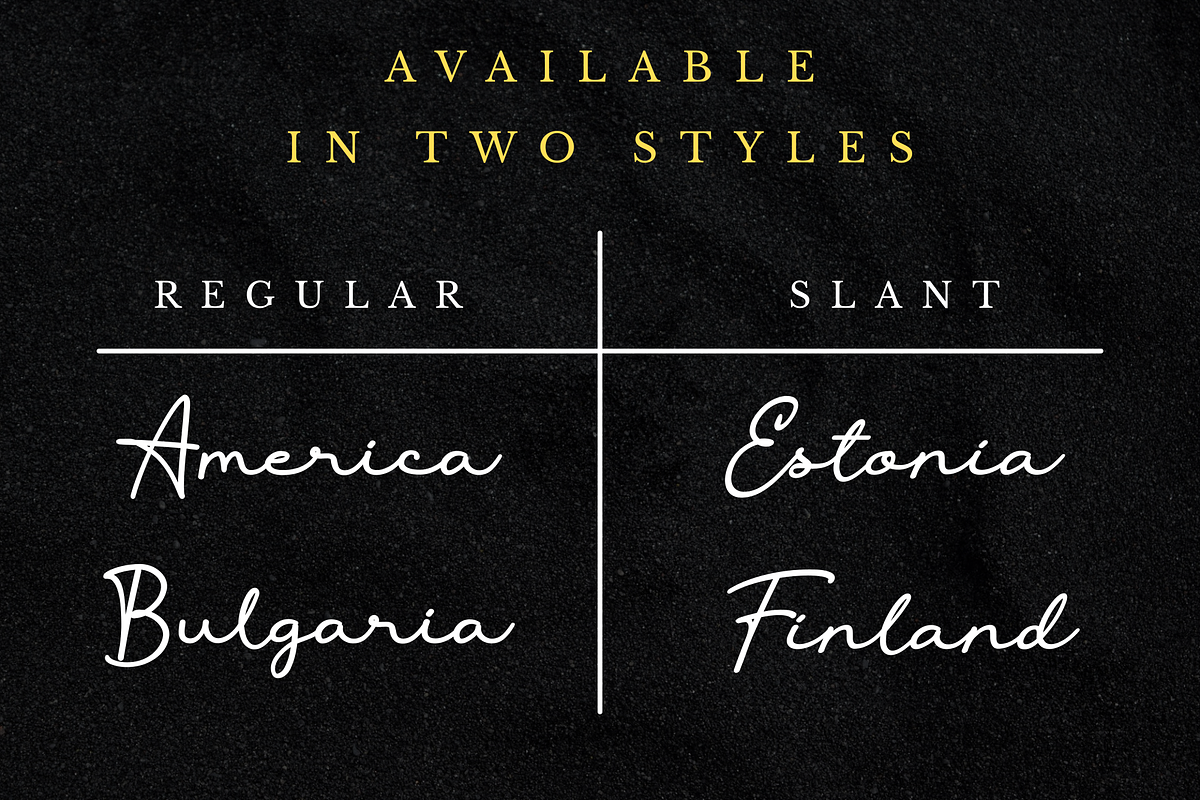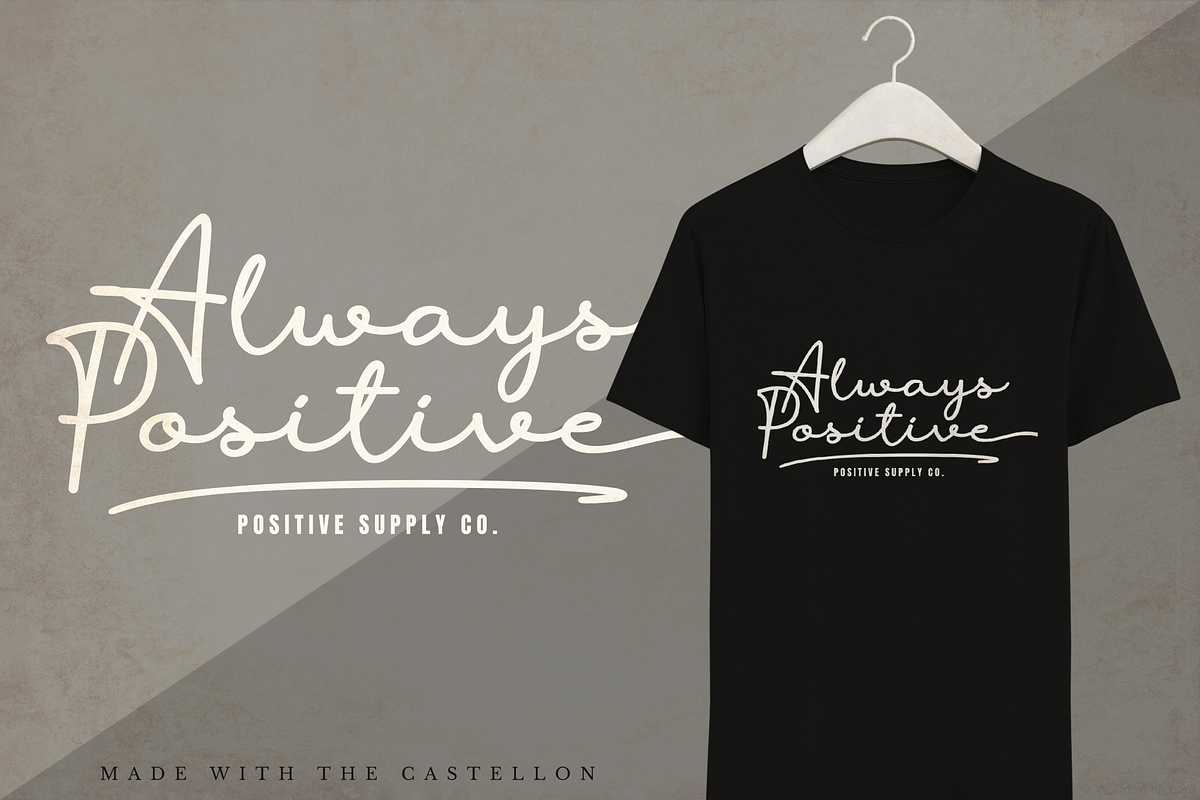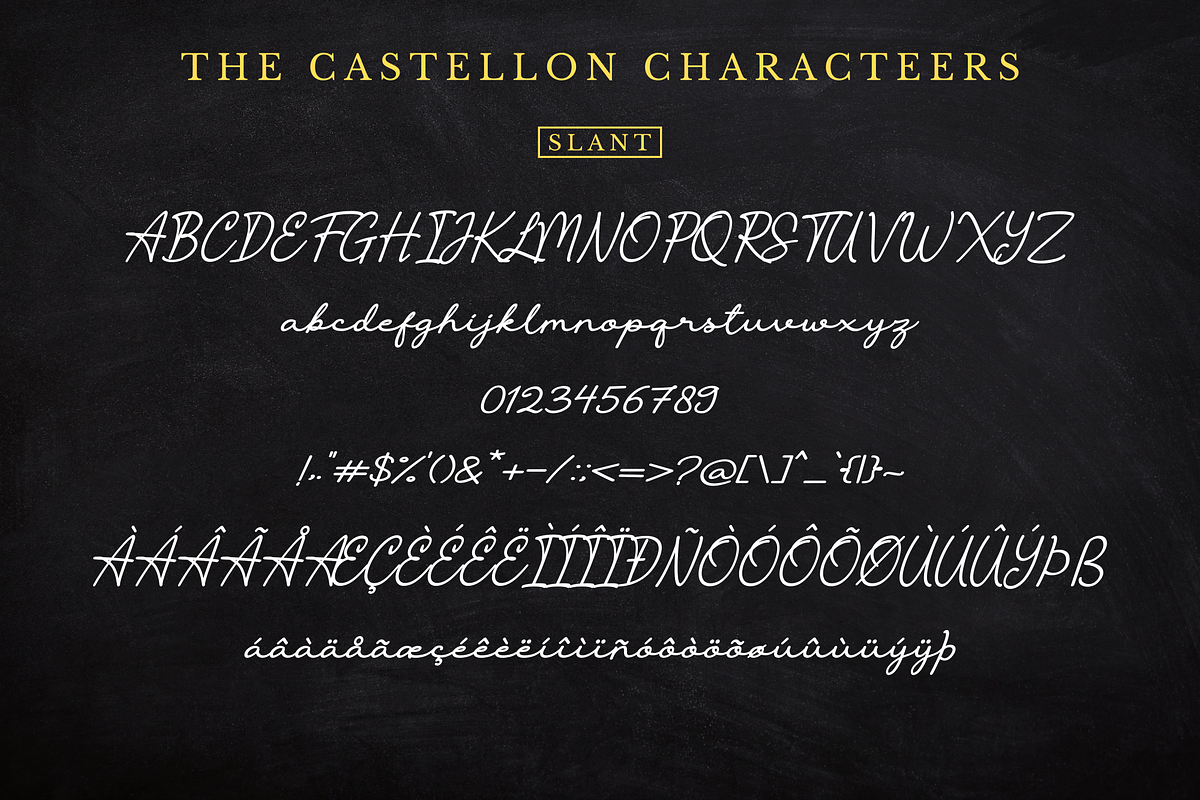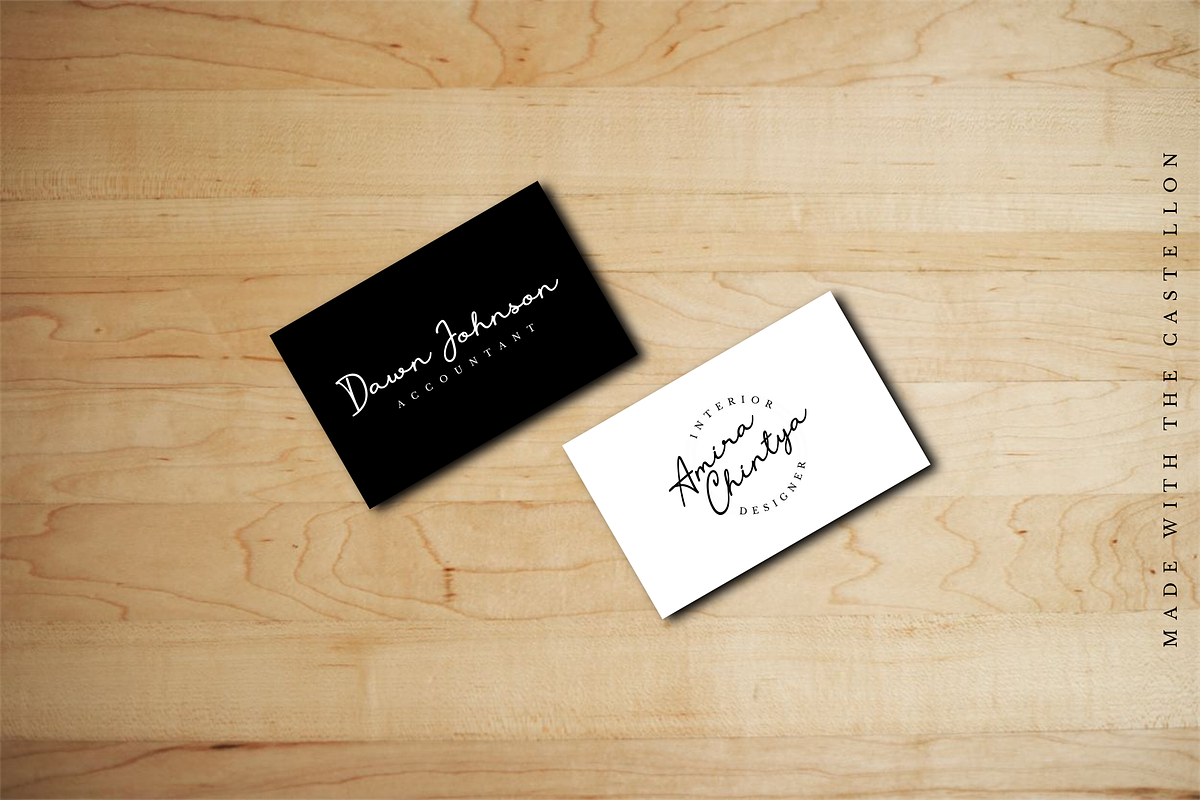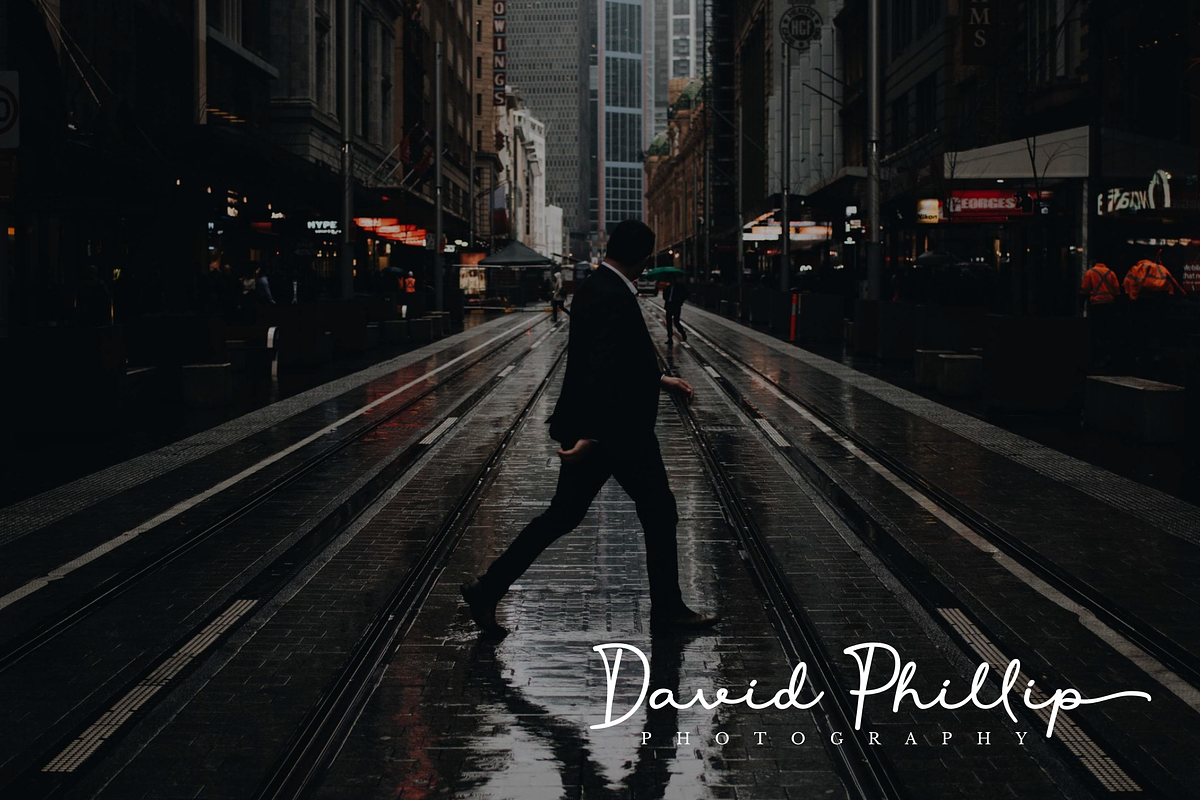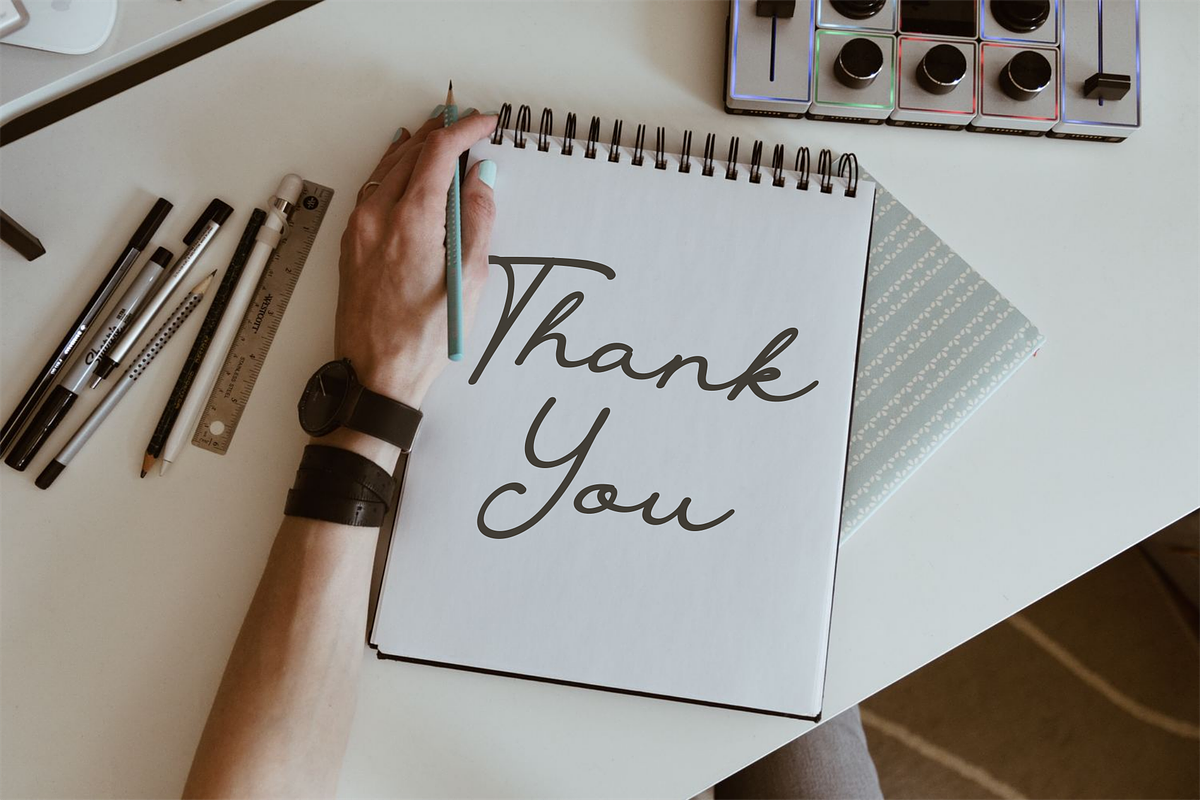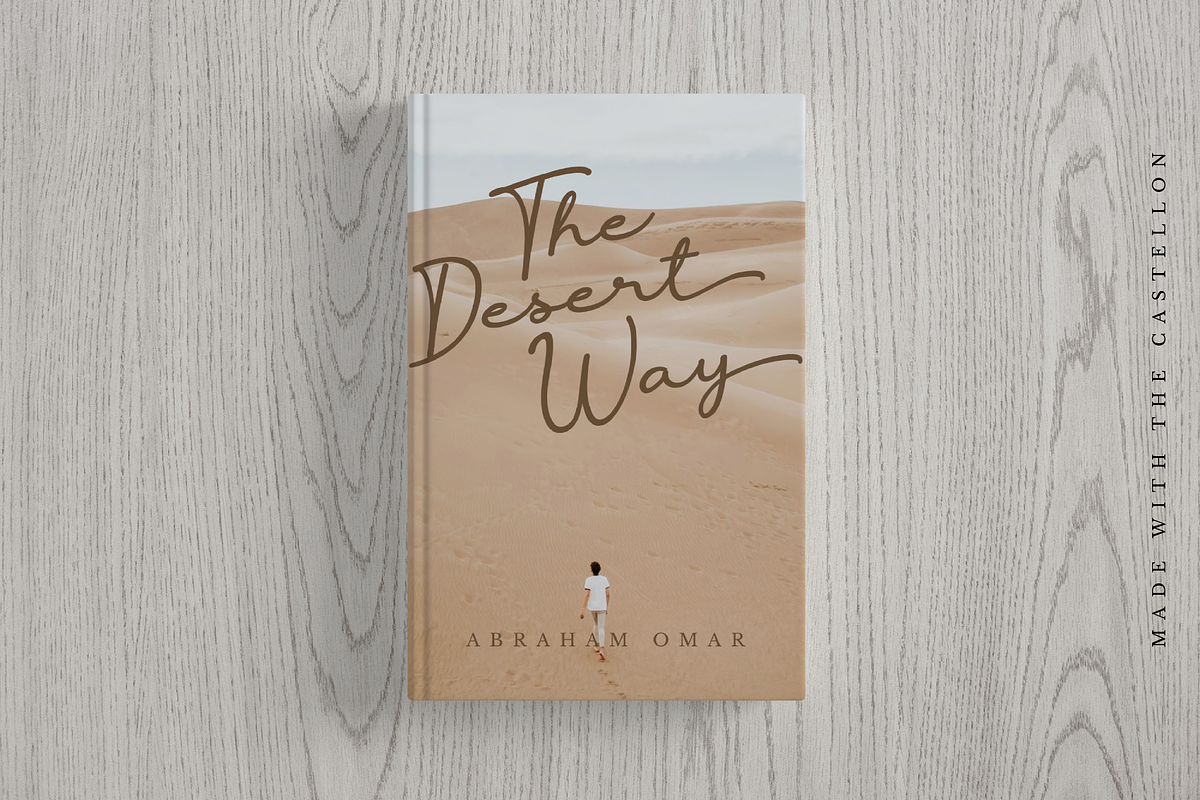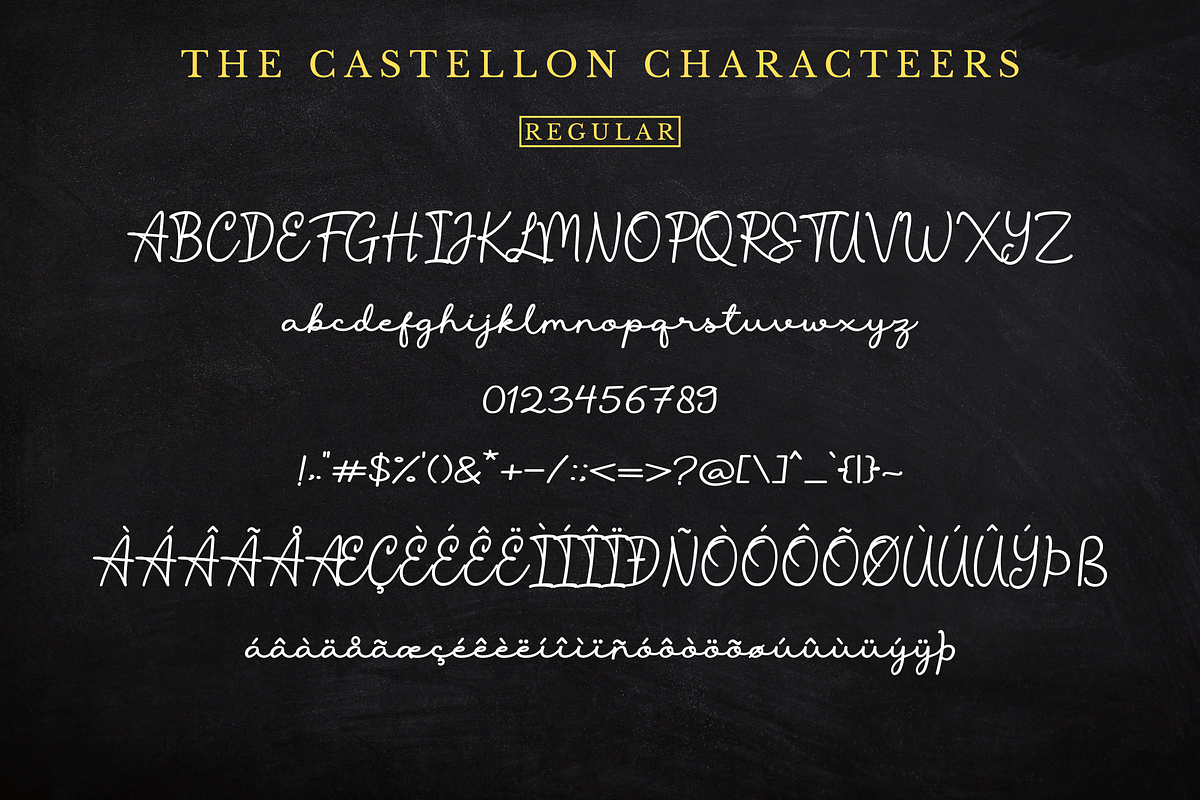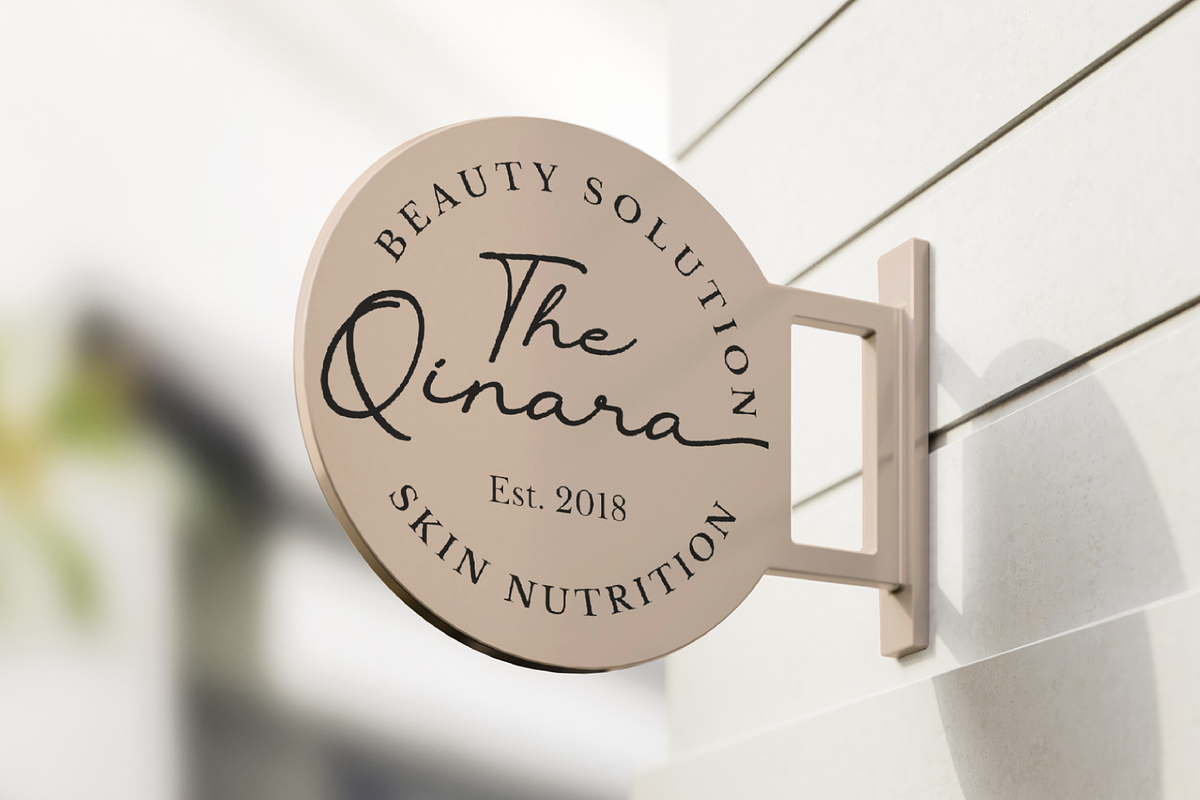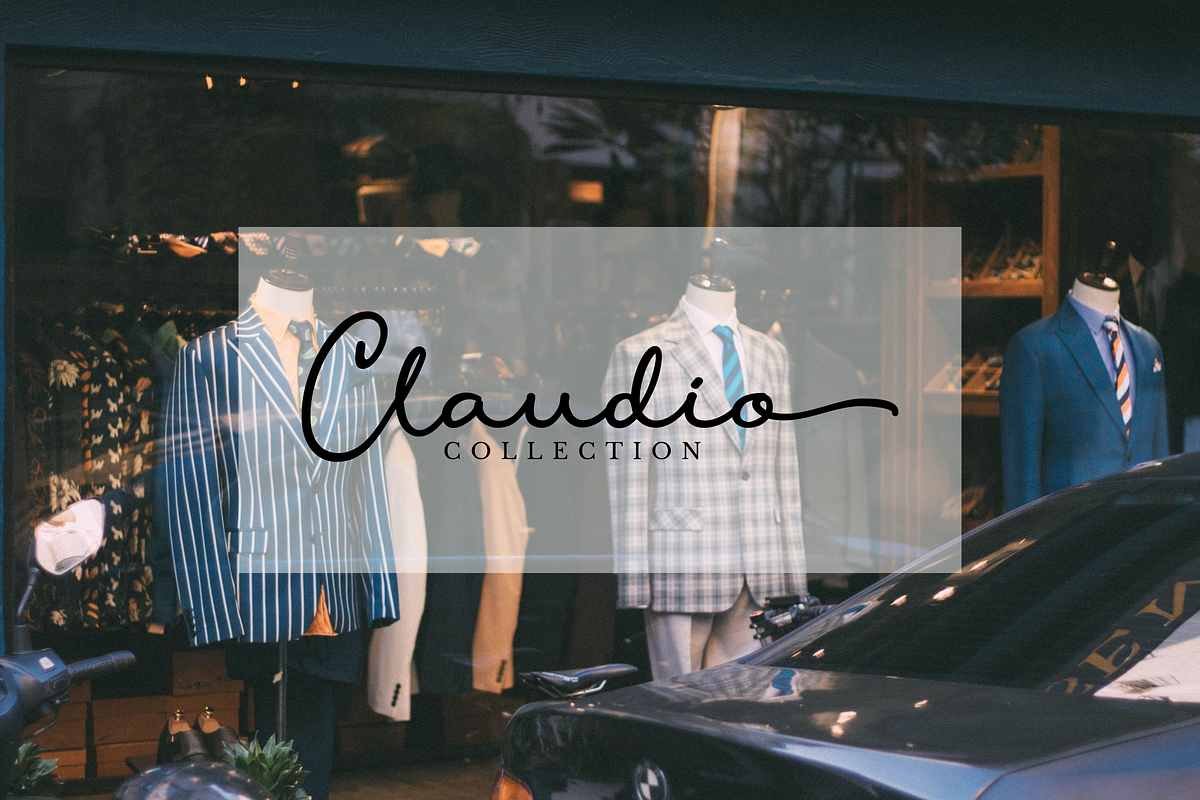
The Castellon
The Castellon is a classy signature typeface, it includes two styles regular and slant. It has an elegant style which can be used to add a natural touch to your designs. It is a good choice for watermarks on photography, signature, logo designs, quotes, branding, business cards, and many other design projects.
Don't worry if you have not an OpenType software, because it included extra ending swash ligatures, that make your work easier. Just add two underscores after the word (word+\\) and you will get the beautiful ending swash.